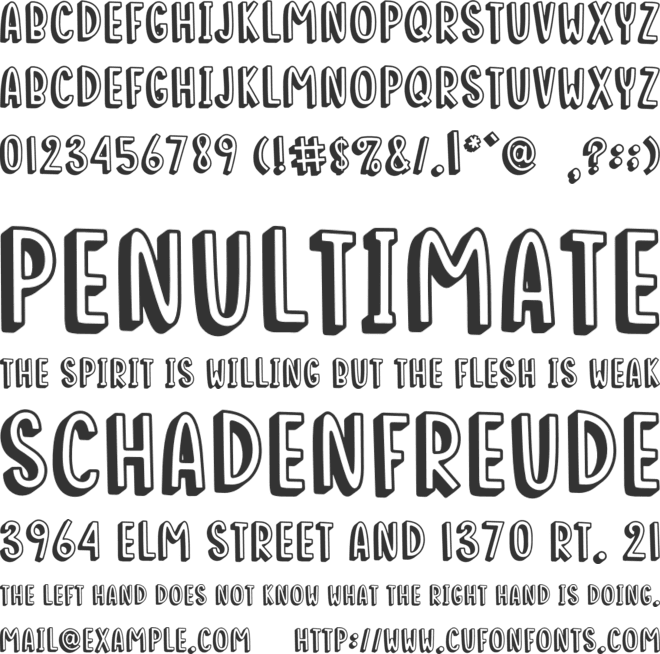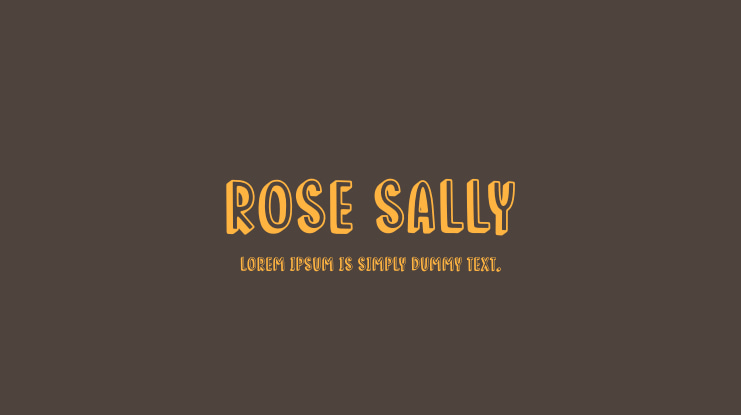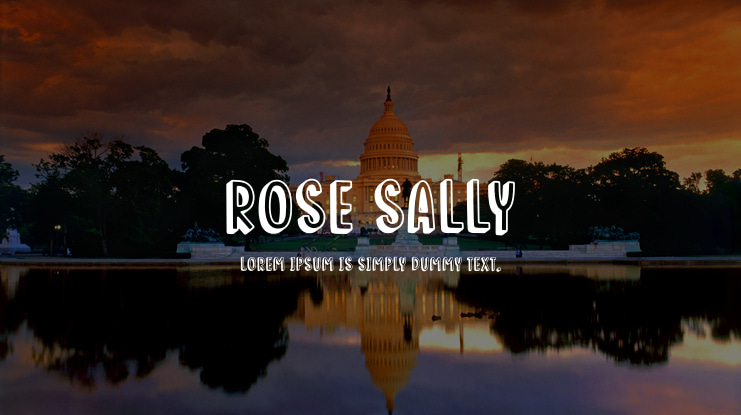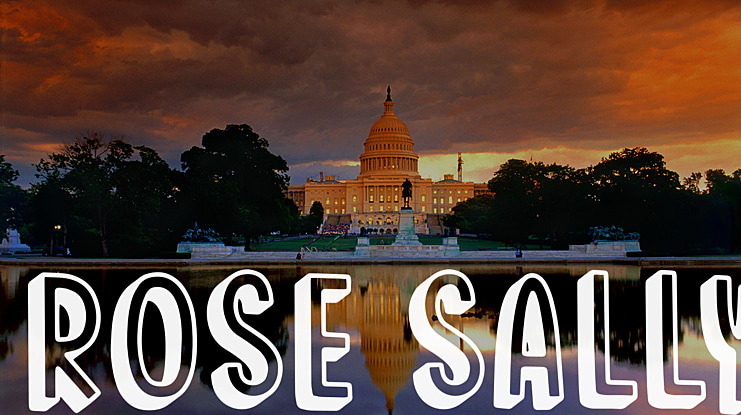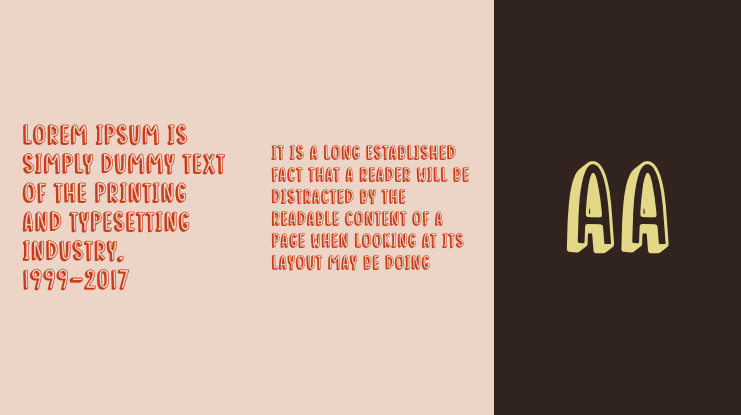
Rose Sally Font
The Docallisme
Rose Sally is a super fun, quirky and child themed typeface. Perfect for child related project, cute quotes and so much more.